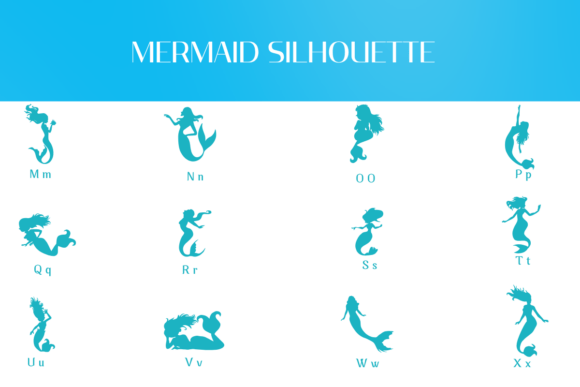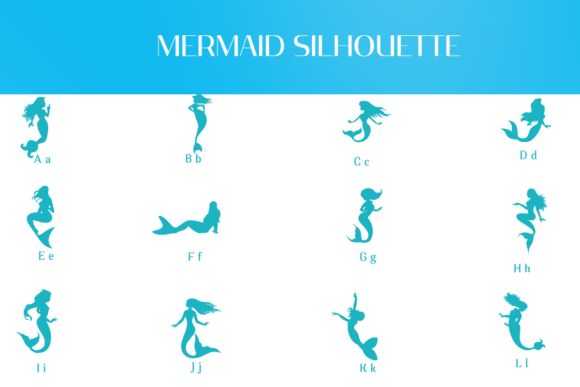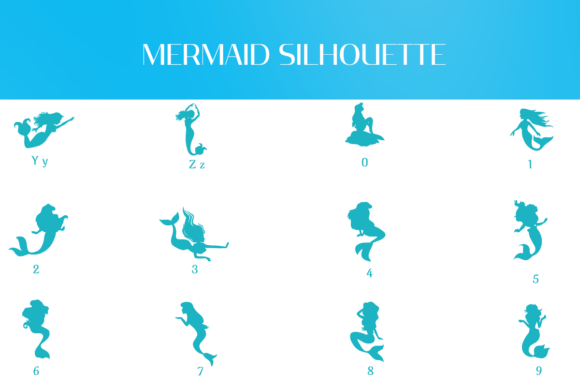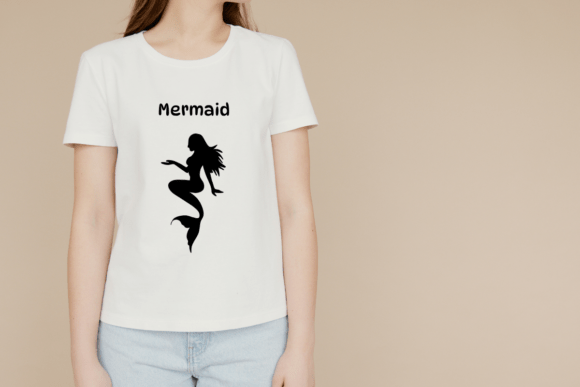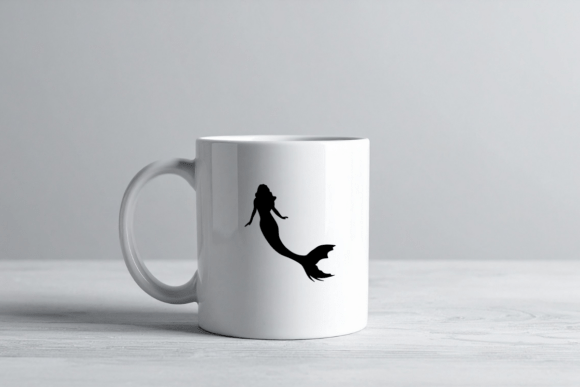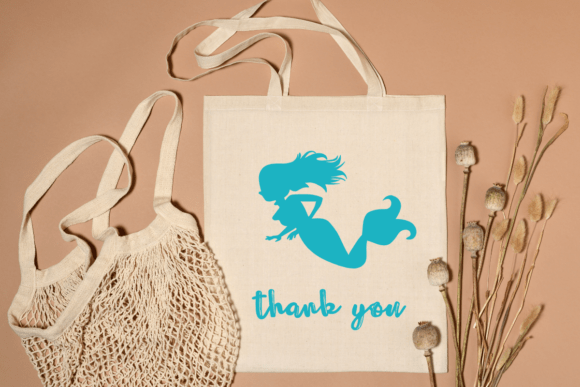
Introduction to Mermaid Silhouette Font
Have you ever found yourself typing away at your computer, brainstorming ideas for a creative project, only to be interrupted by a wave of inspiration – in this case, a mermaid-inspired design that refuses to be ignored? For designers, the perfect font can be the key to unlocking a world of possibilities, and the Mermaid Silhouette Font is no exception.
This enchanting dingbats font is a treasure trove of beautifully illustrated mermaid shapes, each one more captivating than the last. With its dreamy and elegant style, the Mermaid Silhouette Font is the perfect addition to any design resource, offering a high-quality collection of silhouettes that can be used to create stunning graphics with ease.
Key Features of Mermaid Silhouette Font
- High-quality, hand-drawn design ideal for creative projects and design resources.
- Transparent background, allowing for seamless integration with any design or creative project.
- Includes 6 unique characters and a range of font sizes, from 12 to 72 points, to cater to different design needs.
- Suitable for use in digital and print media, including logos, graphics, and illustrations.
- Perfect for designers, artists, and creatives looking for a distinctive and elegant design resource.
Honest Review: Mermaid Silhouette Font
As a designer, I was excited to dive into the Mermaid Silhouette Font, a unique and eye-catching design resource that I hoped would elevate my next creative project. And I’m happy to report that it did just that!
The font itself is a high-quality, intricately designed font that features a beautiful mermaid silhouette on a transparent background. It’s perfect for adding a touch of whimsy and fantasy to any design.
- ✨ Unique and creative design that stands out from the crowd
- ✨ High-quality vector format that’s perfect for scalable designs
- ✨ Transparent background makes it easy to combine with other design elements
- ⚠️ Limited character set, which may not be suitable for longer text-based designs
- ⚠️ May not be suitable for designs that require a lot of customization or editing
Overall, I was impressed with the Mermaid Silhouette Font and would definitely consider using it again in my next creative project. With its unique design and high-quality format, it’s a great addition to any designer’s toolkit.
Getting the Most Out of Mermaid Silhouette Font
To get the most out of the Mermaid Silhouette Font, experiment with different font sizes, colors, and combinations. Use it to create eye-catching headings, titles, and quotes that add a touch of sophistication to your design project.
The Mermaid Silhouette Font is perfect for a variety of design projects, including wedding invitations, baby shower invitations, and underwater-themed designs. Its unique design and high-quality resolution make it a valuable addition to any design resource library.